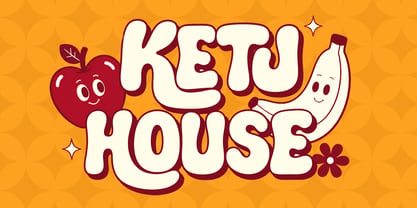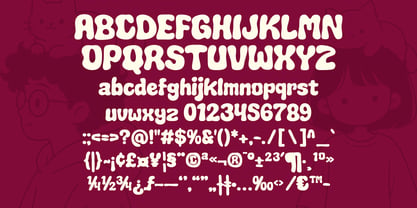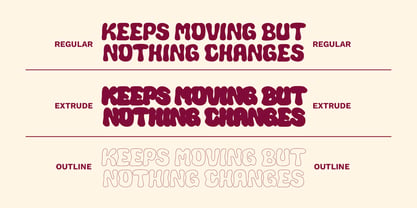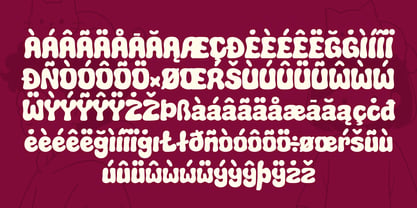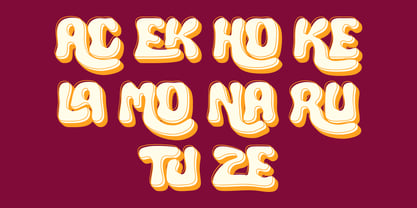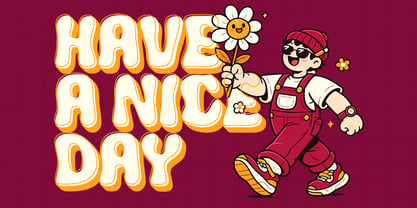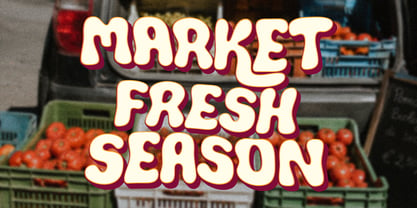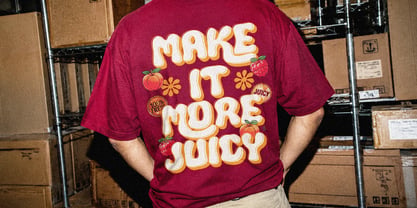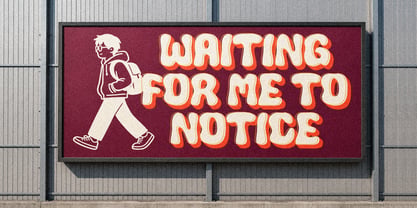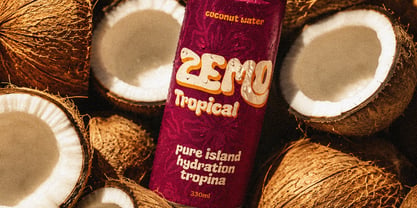
MLTP Tuekila Zeland is a playful bubble chunky display font with bold, rounded, and wonderfully irregular letterforms that instantly capture attention. Designed with an organic hand-drawn feel, this expressive typeface combines soft curves, bubbly shapes, and quirky proportions to create a fun, cheerful, and memorable visual identity.
Its thick and highly distinctive characters make it perfect for eye-catching headlines, children's designs, playful branding, food packaging, comic titles, posters, stickers, social media graphics, YouTube thumbnails, greeting cards, and creative editorial projects. Every letter features a smooth blob-like aesthetic that gives your typography a friendly and energetic personality while maintaining excellent visual impact.
With both uppercase and lowercase characters, numerals, punctuation, and multilingual symbols, MLTP Tuekila Zeland offers versatile creative possibilities for designers looking for a bold and unique display typeface. Whether you're creating cute branding, retro-inspired artwork, fun merchandise, or vibrant promotional materials, this font delivers a strong and joyful typographic presence.
Bring personality, creativity, and playful charm to your next design with MLTP Tuekila Zeland a bold organic display font made to stand out in colorful and imaginative projects.
Perfect for: Kids branding, playful logos, cartoon designs, comic posters, food & beverage packaging, stickers, merchandise, birthday invitations, social media content, YouTube thumbnails, advertising, and creative display typography.